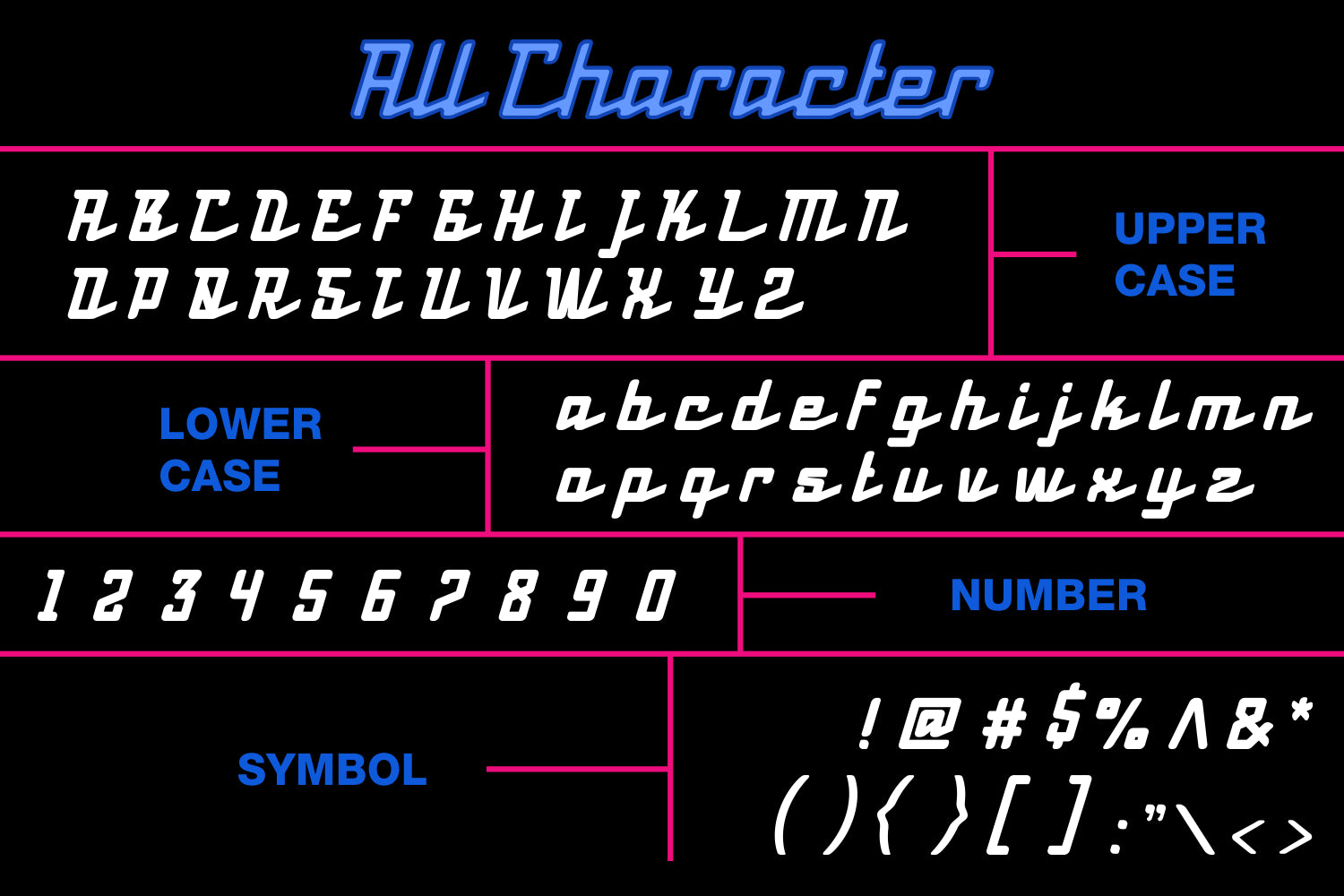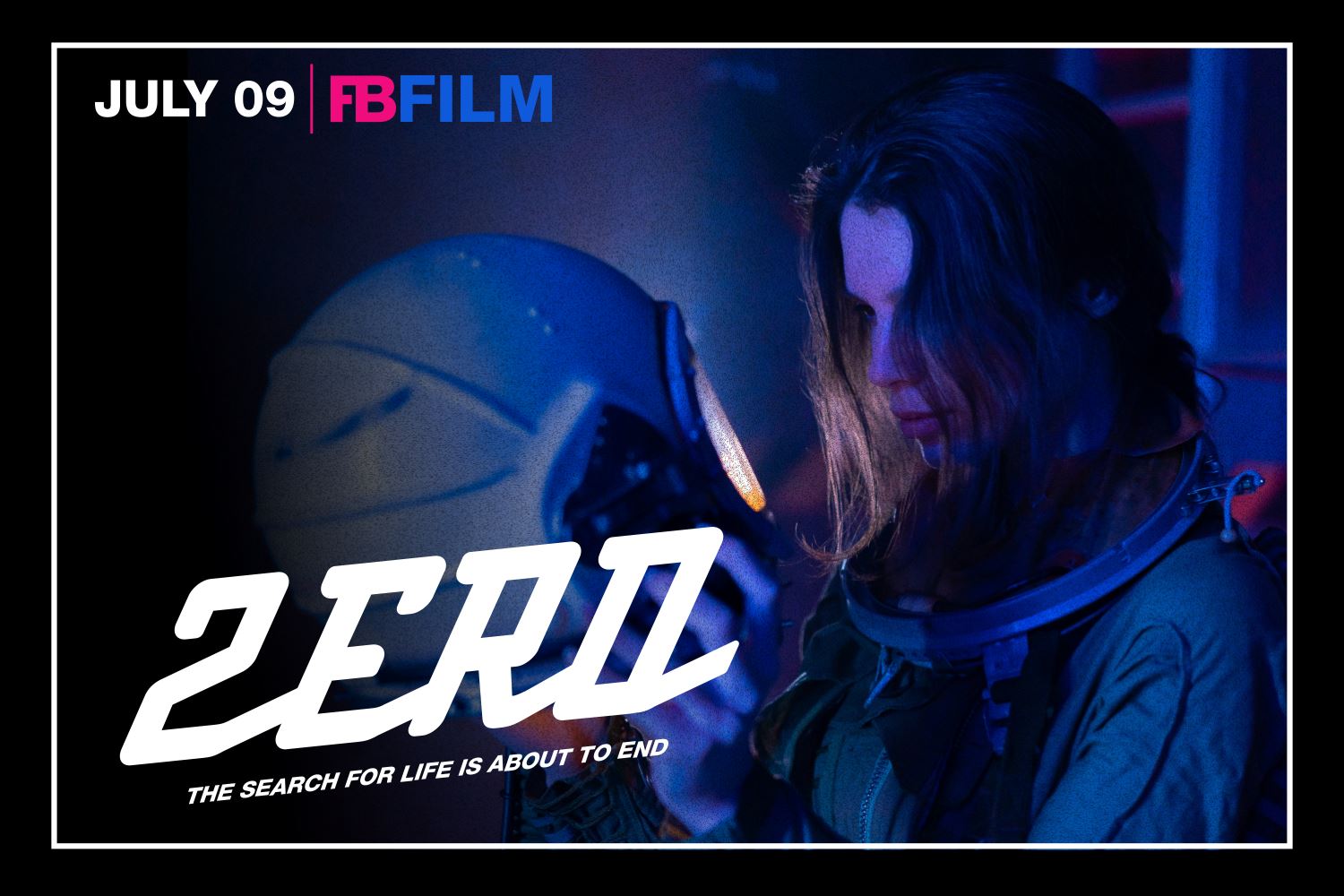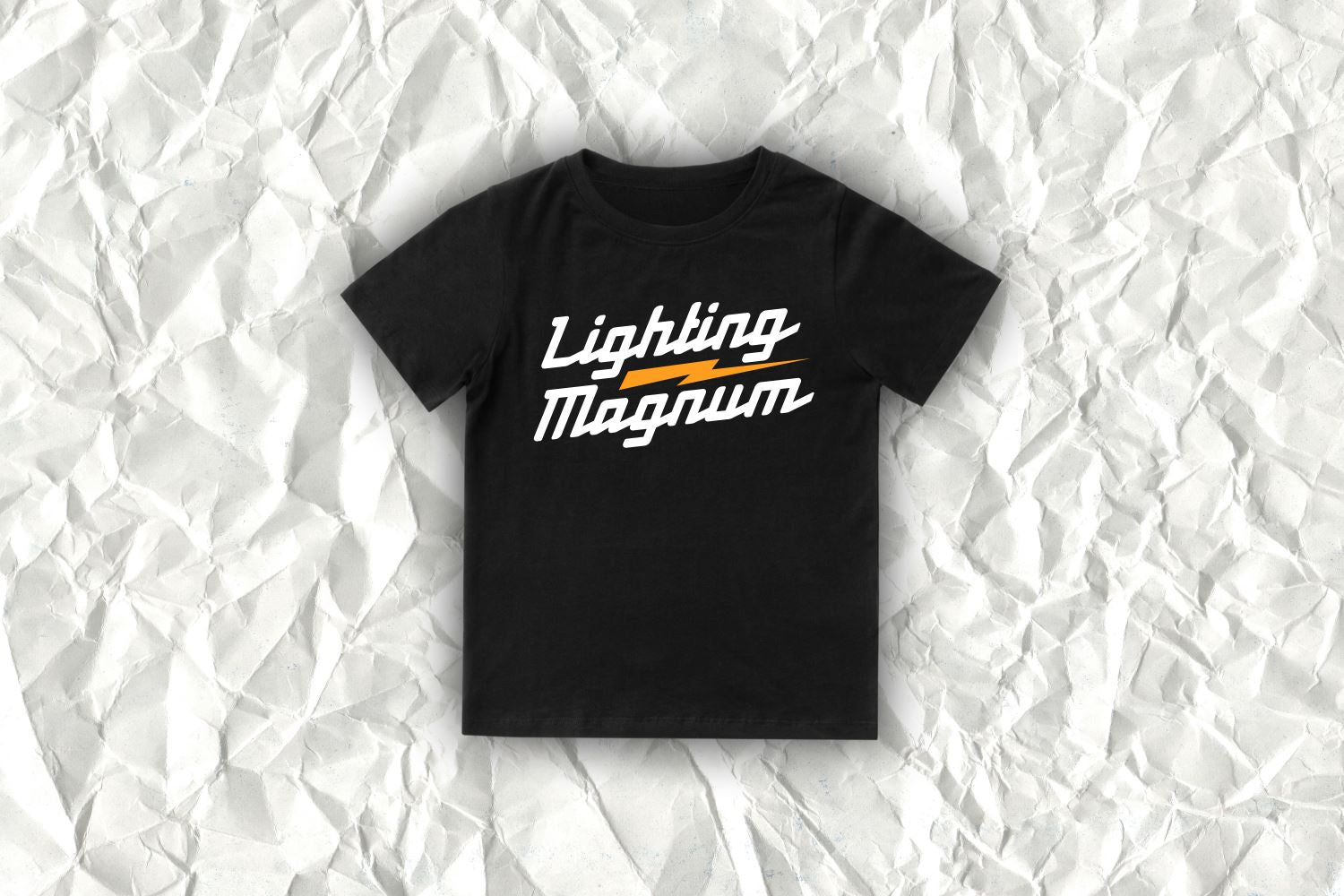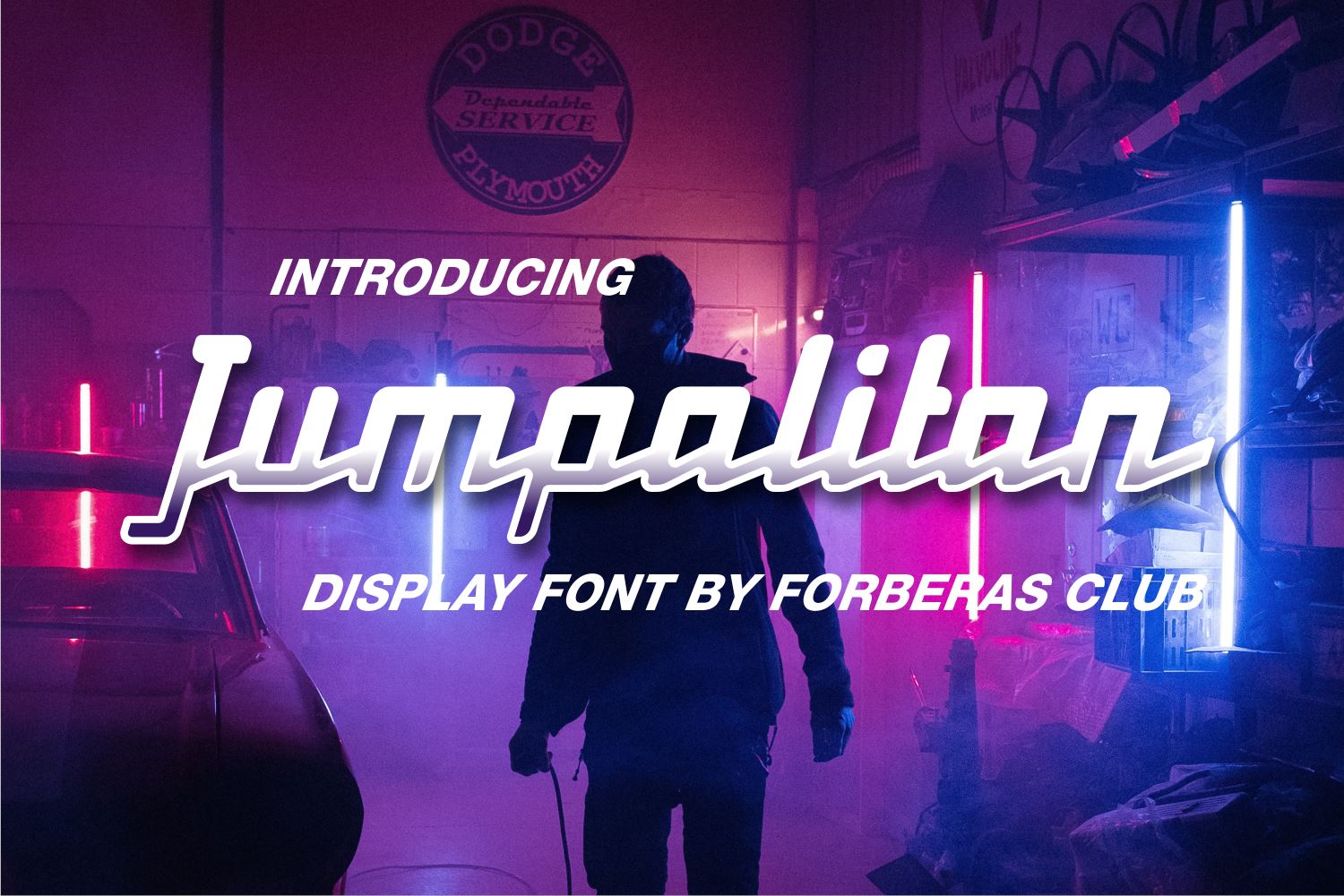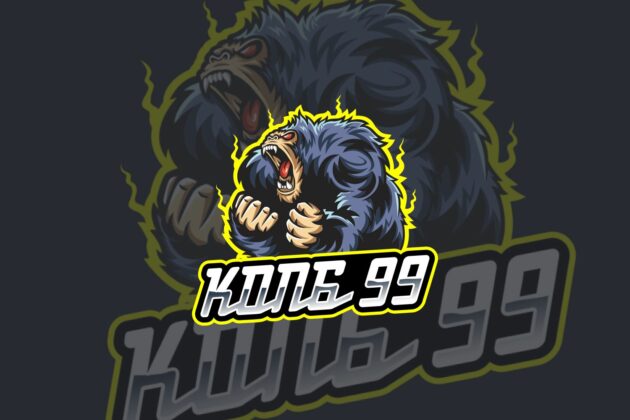
Jumpalitan
About Jumpalitan
Introducing Jumpalitan Font by Forberas Club Jumpalitan is a Modern Handwritten Font. Jumpalitan is perfect for book cover, product packaging, branding project, megazine, social media, wedding, or just used to express words above the background.This font includes TTF and OTF, This font also multilingual support.